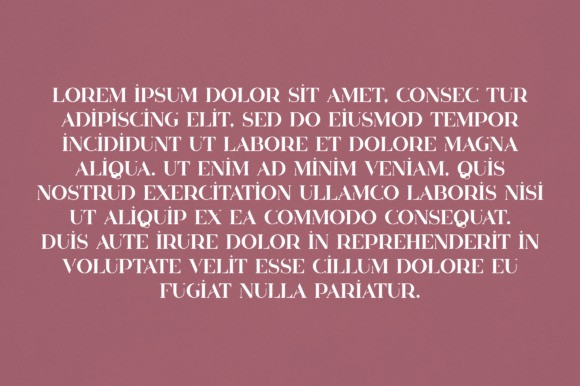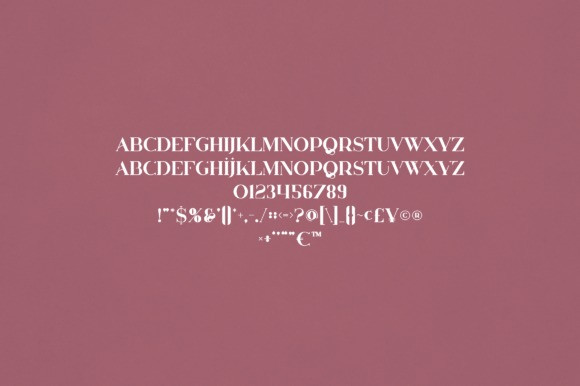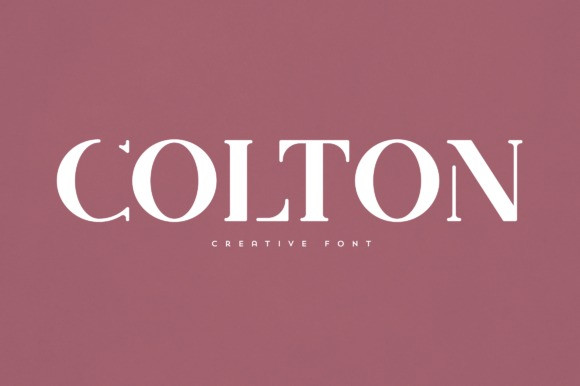
Colton Font
Colton Font is an elegant and versatile font that will make your typography truly unique! It will enchant every logo, branding, headline, or plain text!